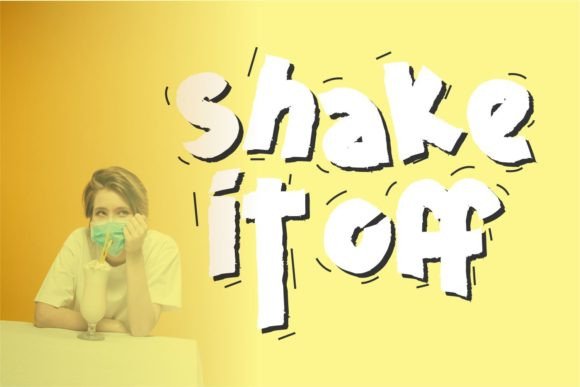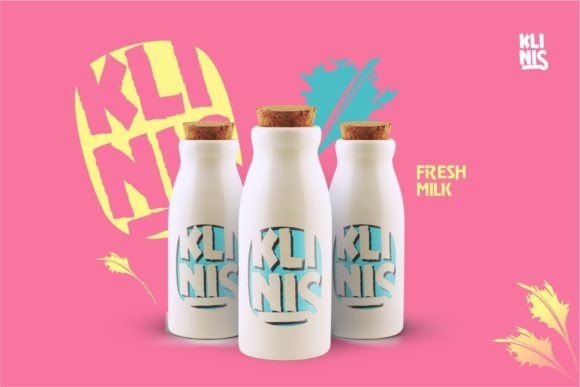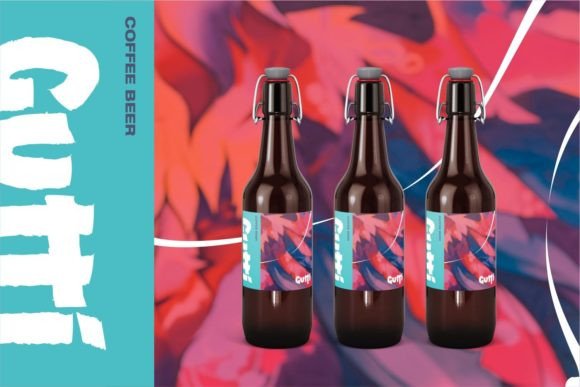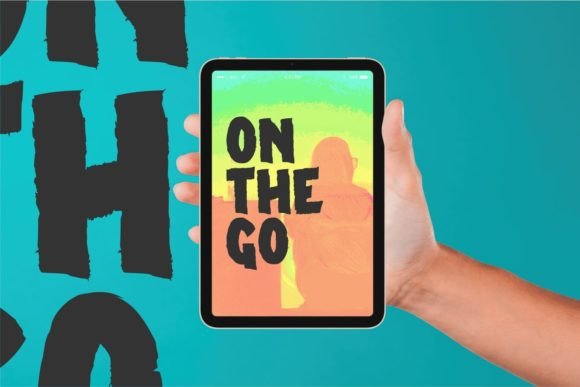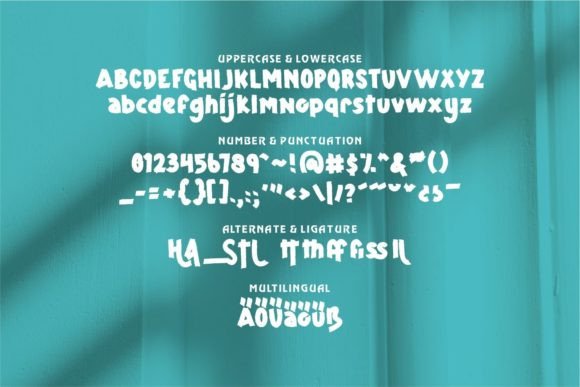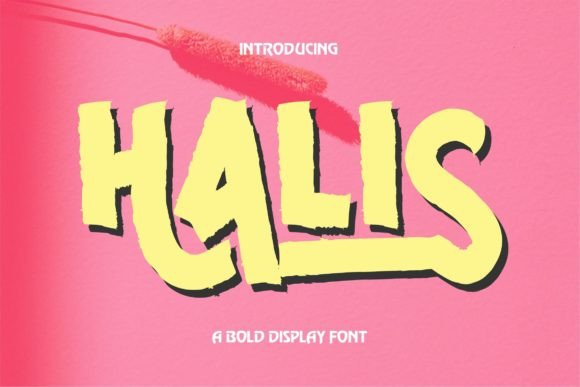
Halis Font: The Bold and Daring Display Font for All Occasions
Are you tired of using the same old fonts for your crafts, digital designs, presentations, and greeting cards? Look no further than Halis Font, a bold and daring display font that’s sure to become your new favorite go-to font. In this article, we’ll explore the features and benefits of Halis Font, and why it’s a must-have for designers and crafters alike.
What is Halis Font?
Halis Font is a display font designed to make a statement. Its bold and daring design makes it perfect for grabbing attention and adding a touch of personality to any project. Whether you’re creating a logo, crafting a greeting card, or designing a presentation, Halis Font is sure to make your work stand out.
Key Features of Halis Font
- Bold and Daring Design: Halis Font features a bold and daring design that’s sure to grab attention.
- Versatile: Halis Font can be used for a variety of projects, including crafts, digital design, presentations, and greeting cards.
- Easy to Read: Despite its bold design, Halis Font is easy to read, making it perfect for use in a variety of contexts.
- High-Quality: Halis Font is a high-quality font that’s designed to produce crisp and clear results, even at large sizes.
Benefits of Using Halis Font
So why should you choose Halis Font for your next project? Here are just a few benefits of using this amazing font:
- Adds Personality: Halis Font adds a touch of personality to any project, making it perfect for designers and crafters who want to stand out.
- Grabs Attention: The bold and daring design of Halis Font makes it perfect for grabbing attention and drawing the eye.
- Experiment with Colors: Halis Font looks great in a variety of colors, so don’t be afraid to experiment and find the perfect shade for your project.
Halis Font is perfect for designers and crafters who want to add a touch of personality to their work. Here are just a few ways you can use Halis Font:
- Crafts: Use Halis Font to add a personal touch to your crafts, from scrapbooking to card making.
- Digital Design: Halis Font is perfect for digital designers who want to create bold and eye-catching designs.
- Presentations: Use Halis Font to add a touch of personality to your presentations and make them stand out.
- Greeting Cards: Halis Font is perfect for creating unique and personalized greeting cards.
In conclusion, Halis Font is a bold and daring display font that’s perfect for designers and crafters who want to add a touch of personality to their work. With its versatile design, ease of use, and high-quality results, Halis Font is sure to become your new favorite go-to font. So why wait? Download Halis Font today and start creating amazing designs that stand out!
- What is Halis Font?: Halis Font is a bold and daring display font designed for use in a variety of contexts, including crafts, digital design, presentations, and greeting cards.